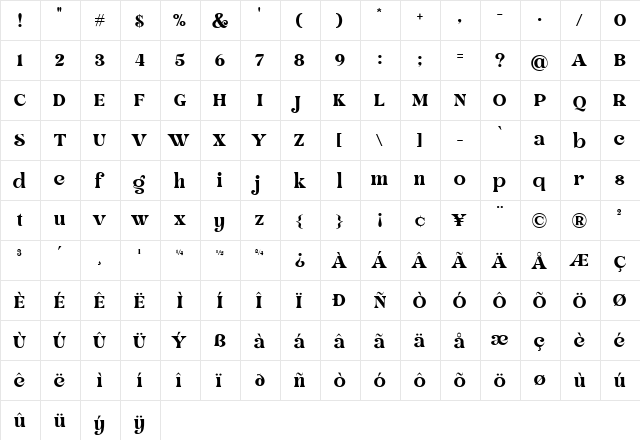
Hellowin Regular
| Foundry | Kong Font |
| Designer | Kong Font |
Design Context for Hellowin Typeface
Hellowin takes a measured approach to typography — its balanced proportions and neutral character make it a reliable workhorse for both digital and print work.